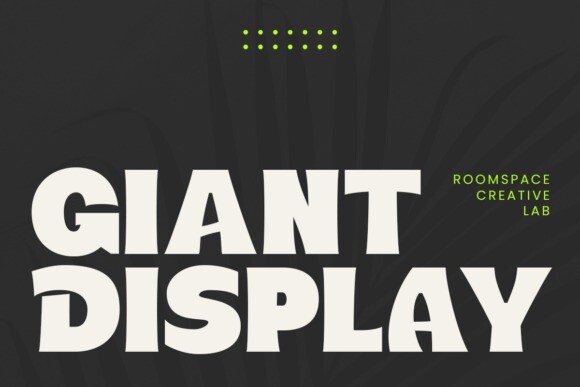
Giant Display Font
Designer: roomspace
Giant Display a powerful sans serif display typeface designed to make a bold statement. With strong lines and an assertive style, this font is crafted to stand out in any project, from branding and posters to packaging and digital media. Its unique, impactful design draws attention and exudes confidence, making it perfect for headlines, logos, and any display-focused designs.